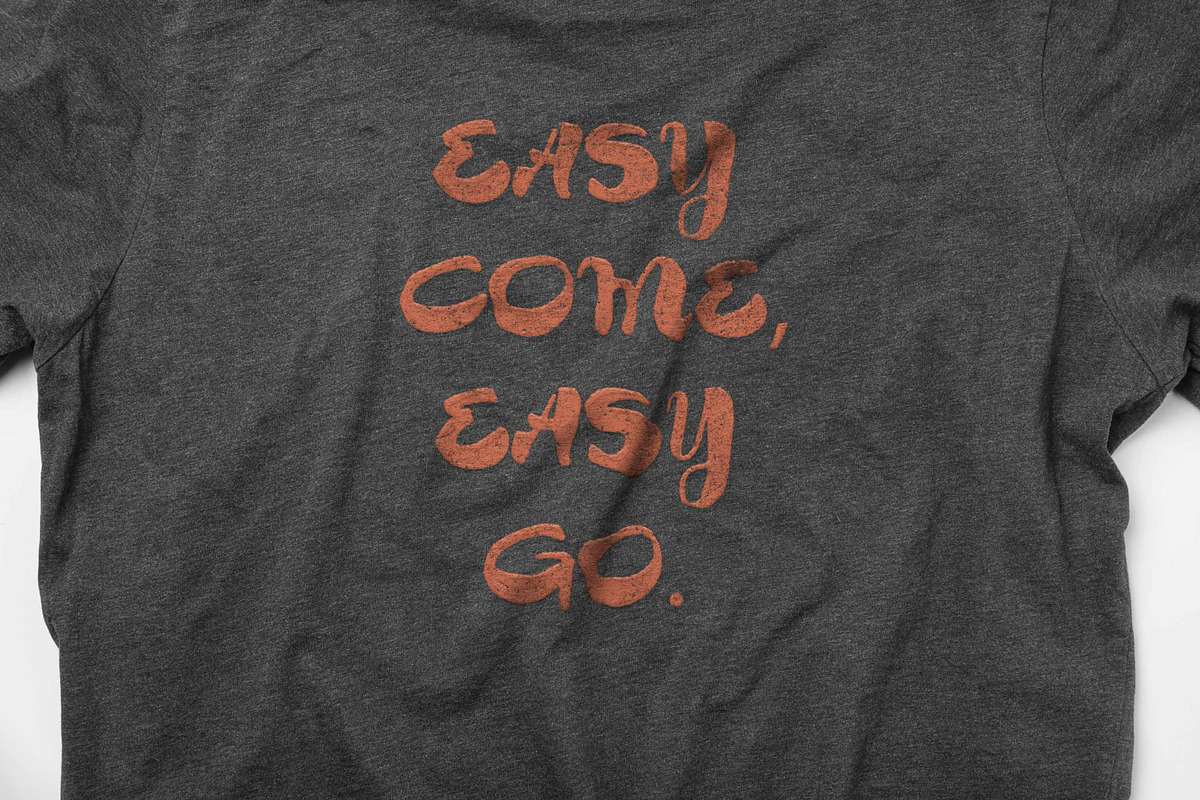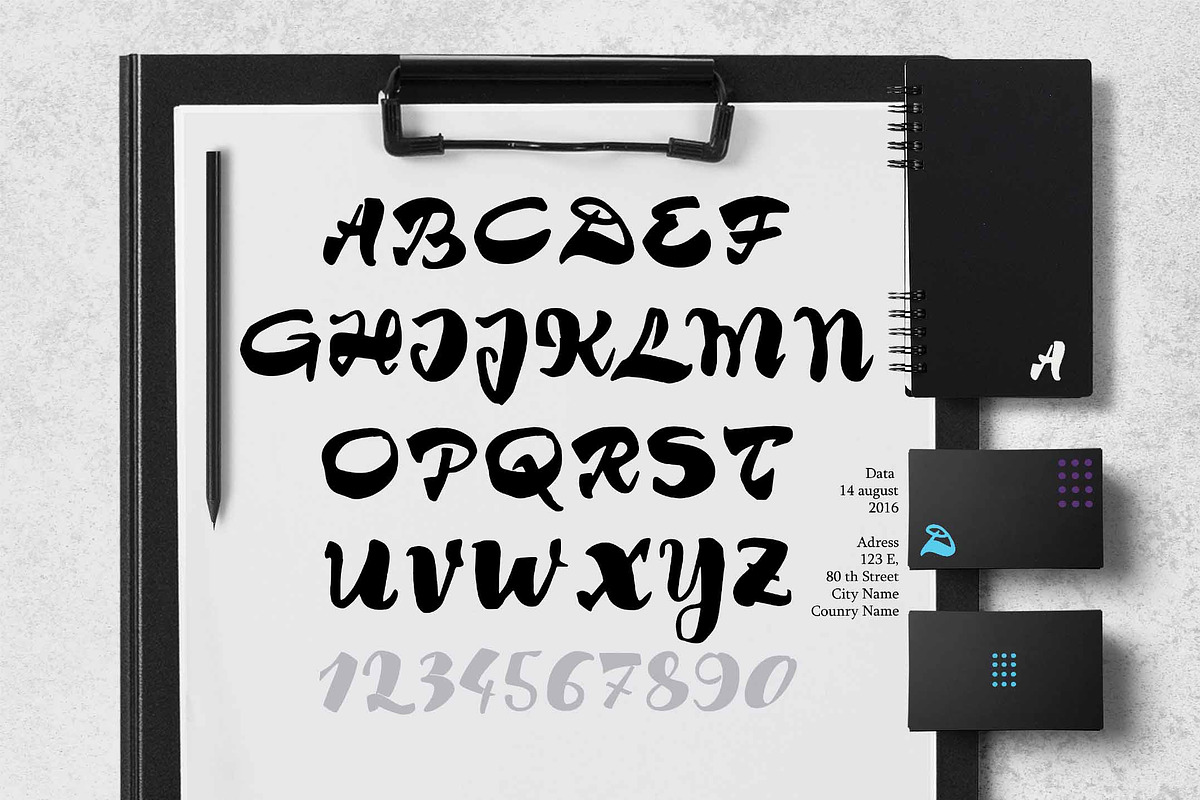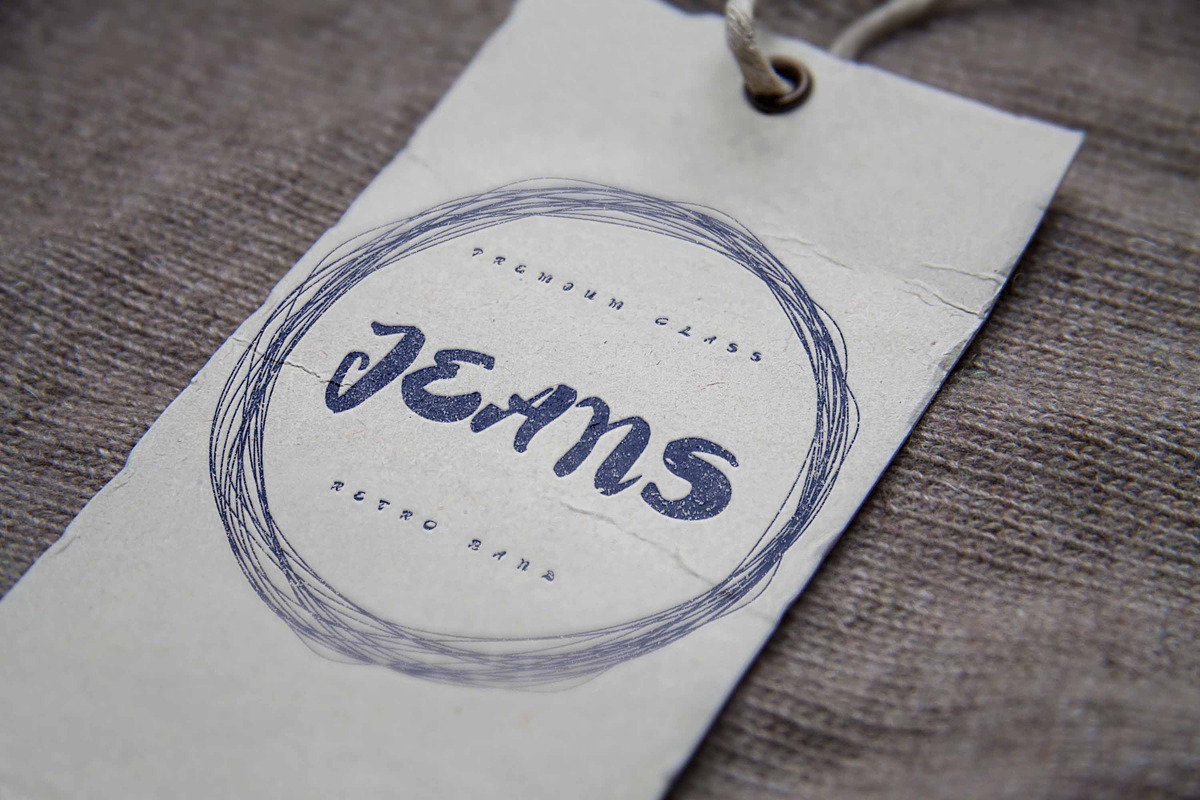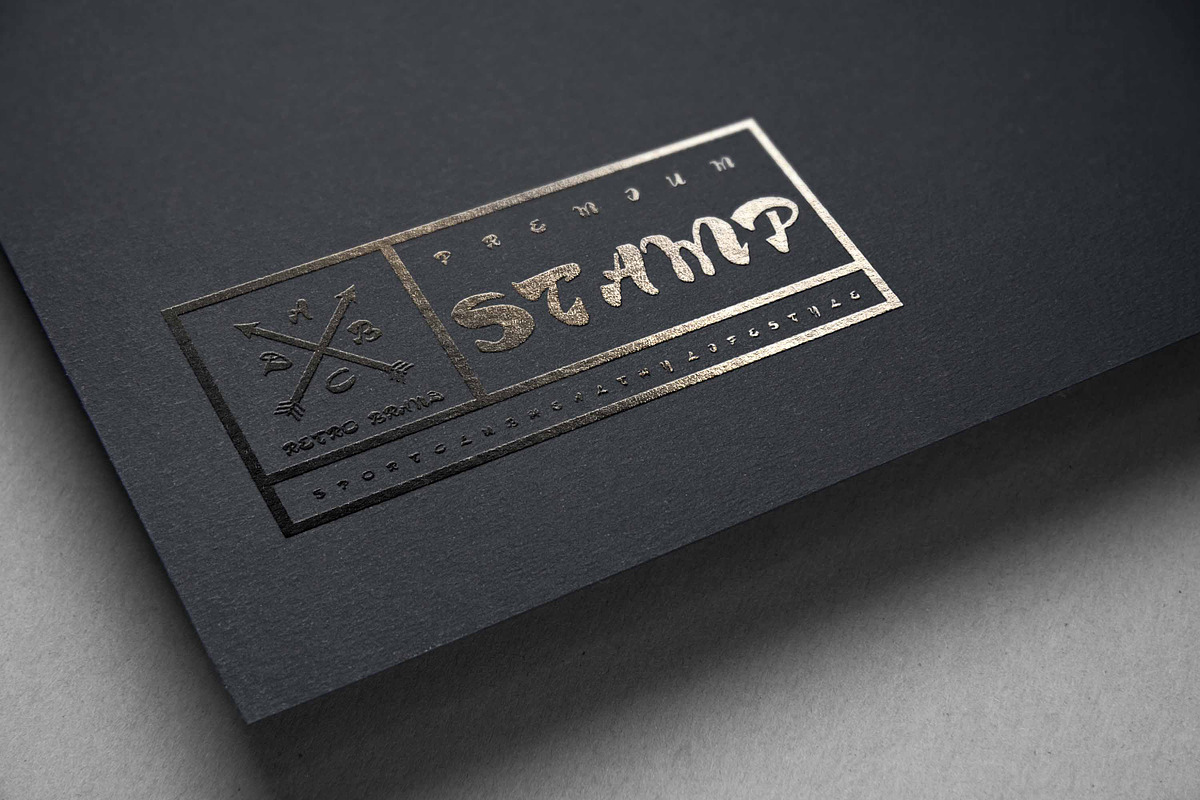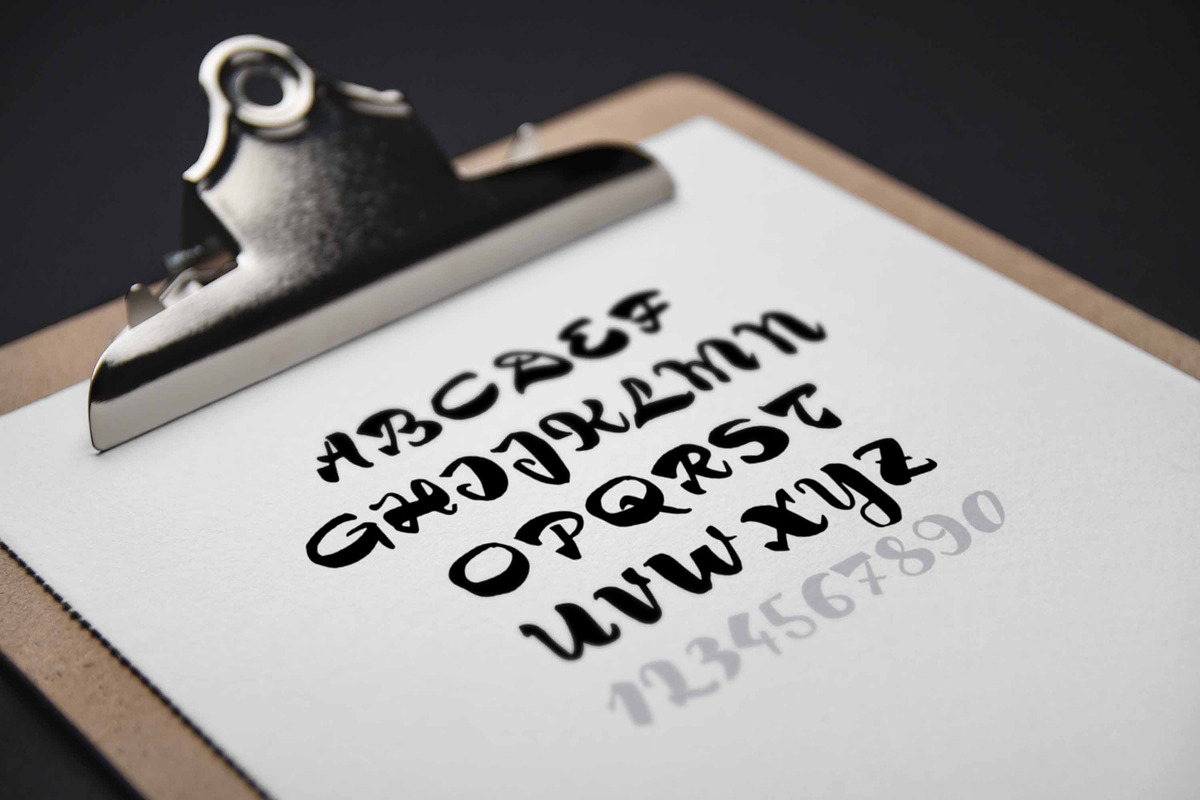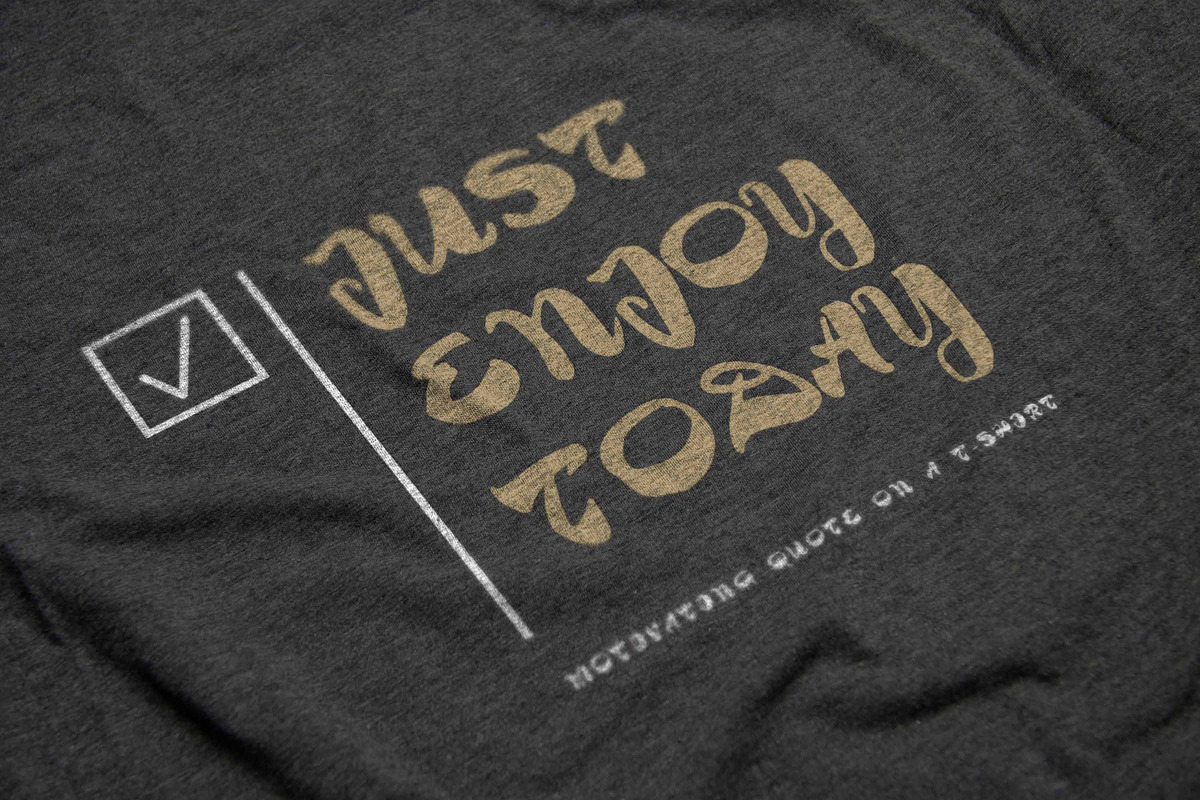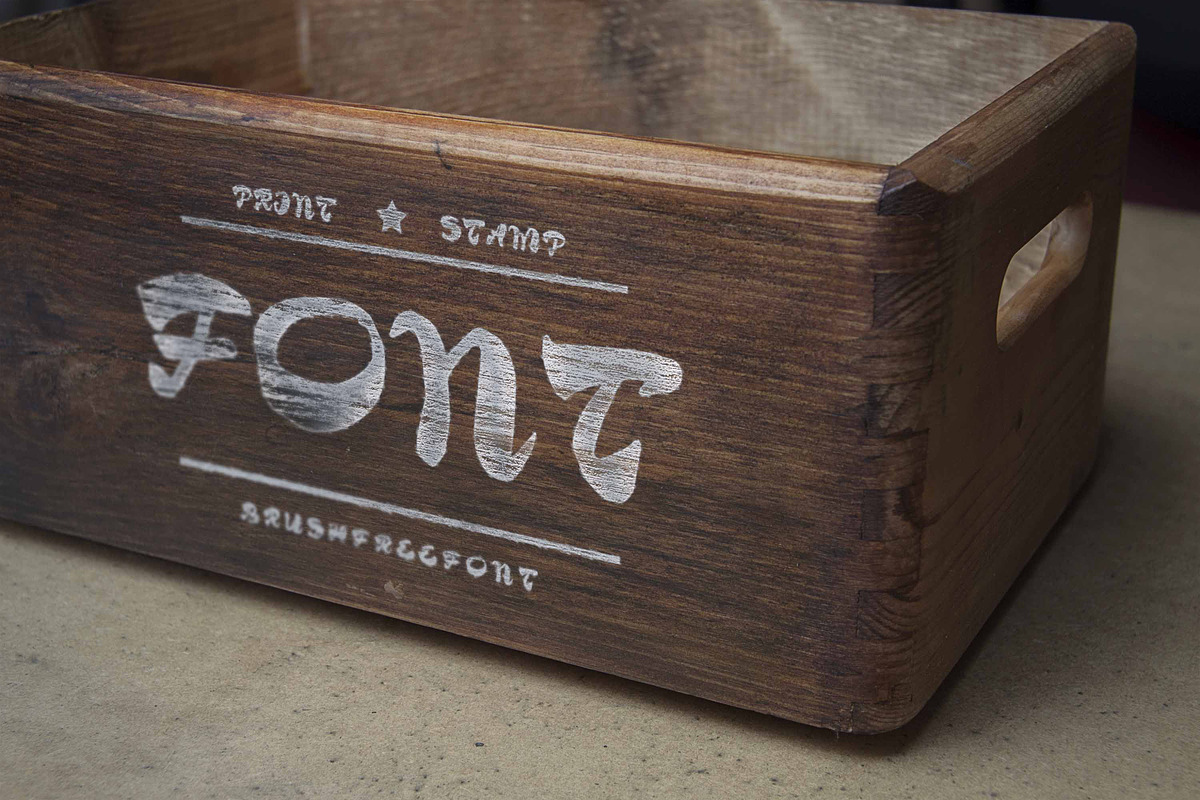
Hello! Presenting a hand drawn calligraphic script Tim
Created by brush and ink on paper first
It can be used to print on clothes, design logos and signs, to create badges for the major labels to card stock